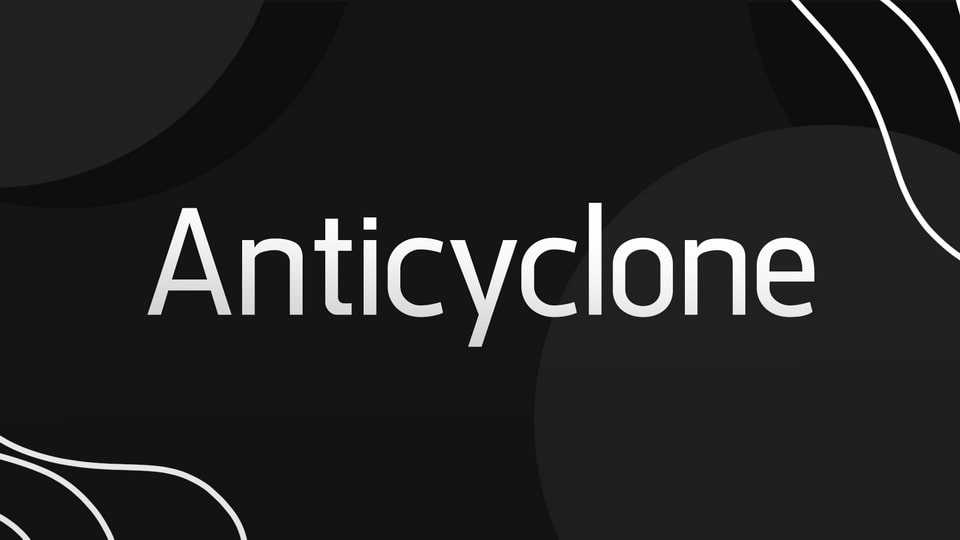
Download Anticyclone font, a straightforward sans serif typeface that is flexible in any situation. It boasts a clean and simple design, making it perfect for various applications.
Designer: Long Nguyen